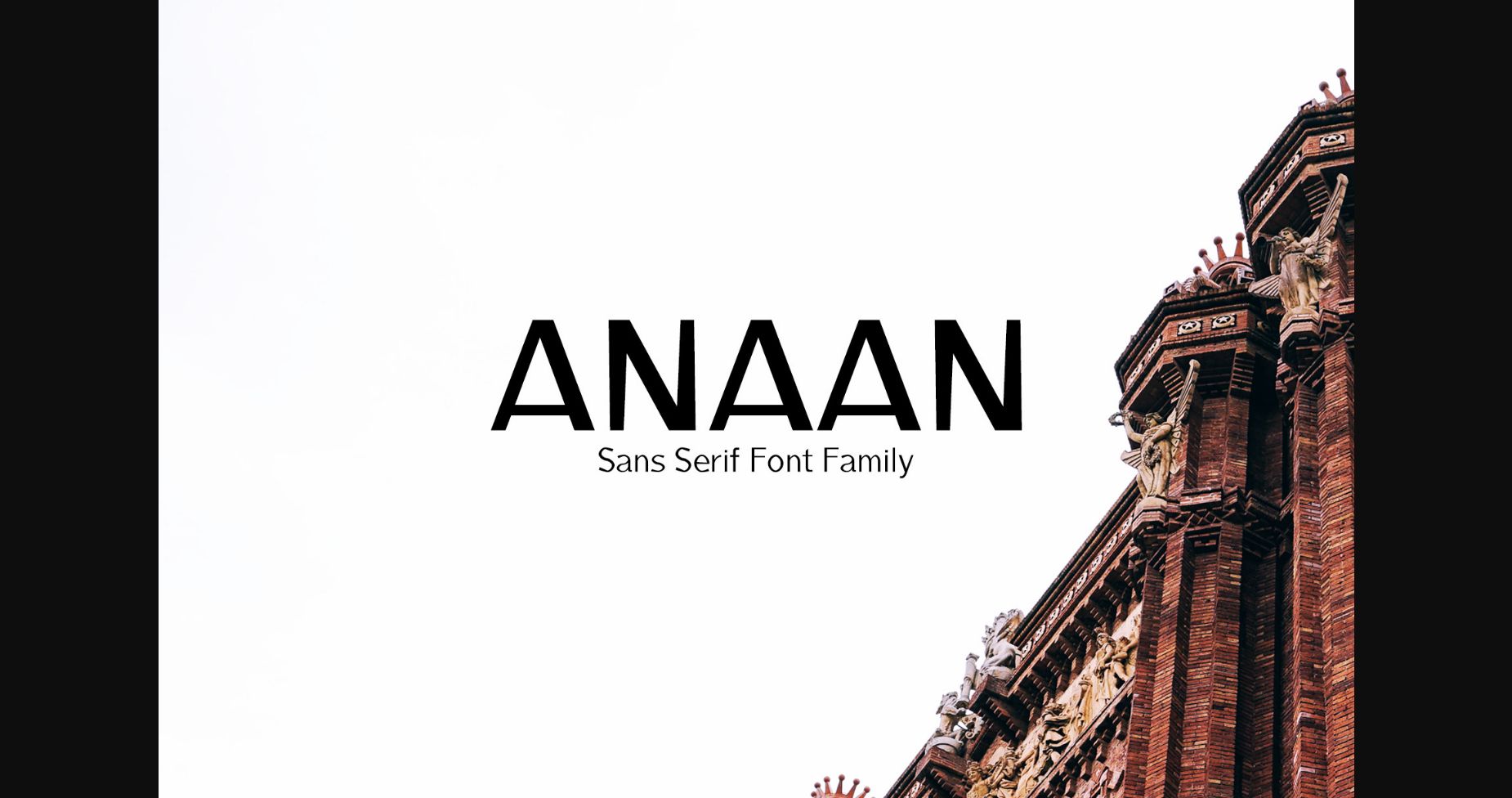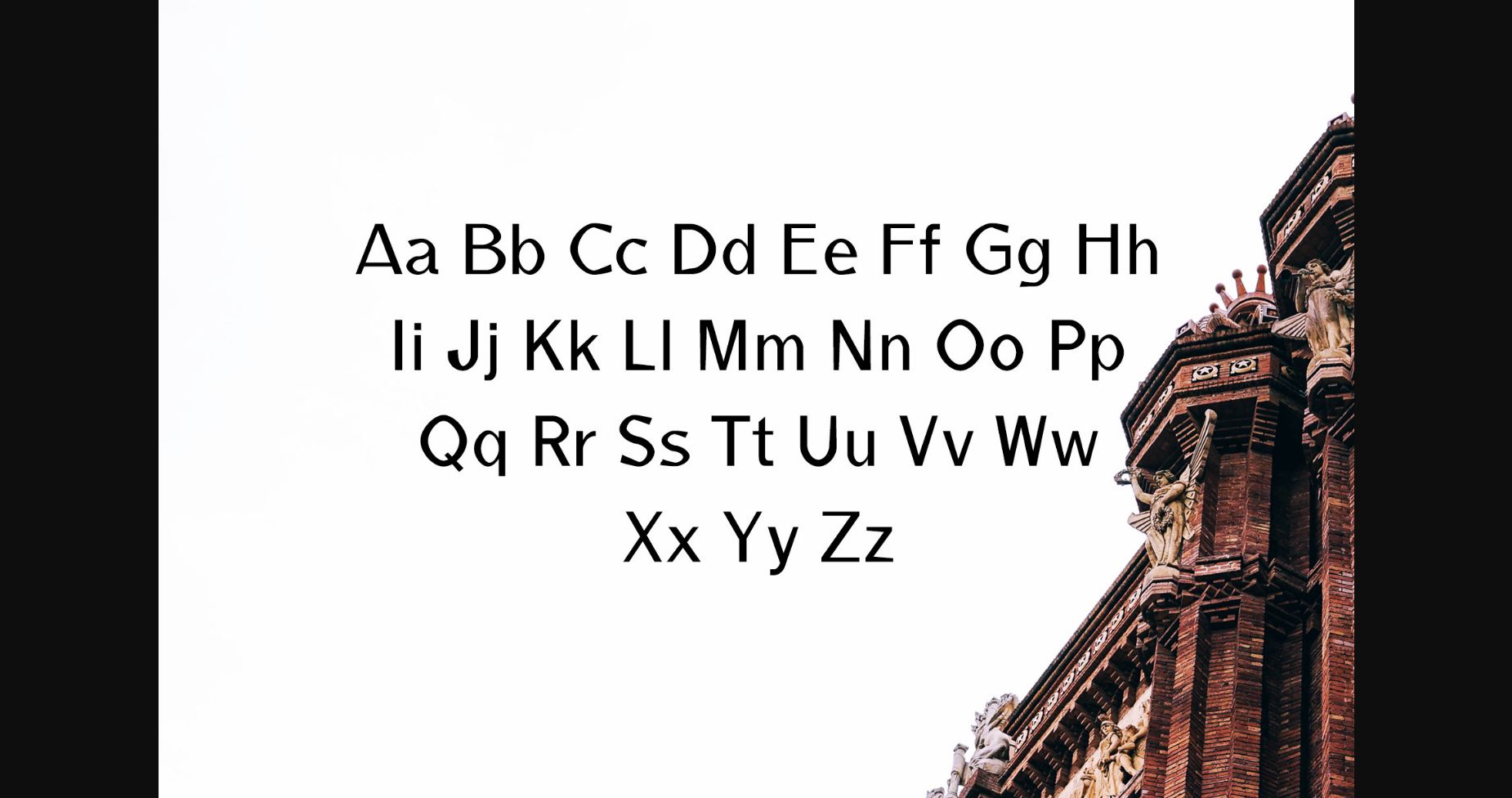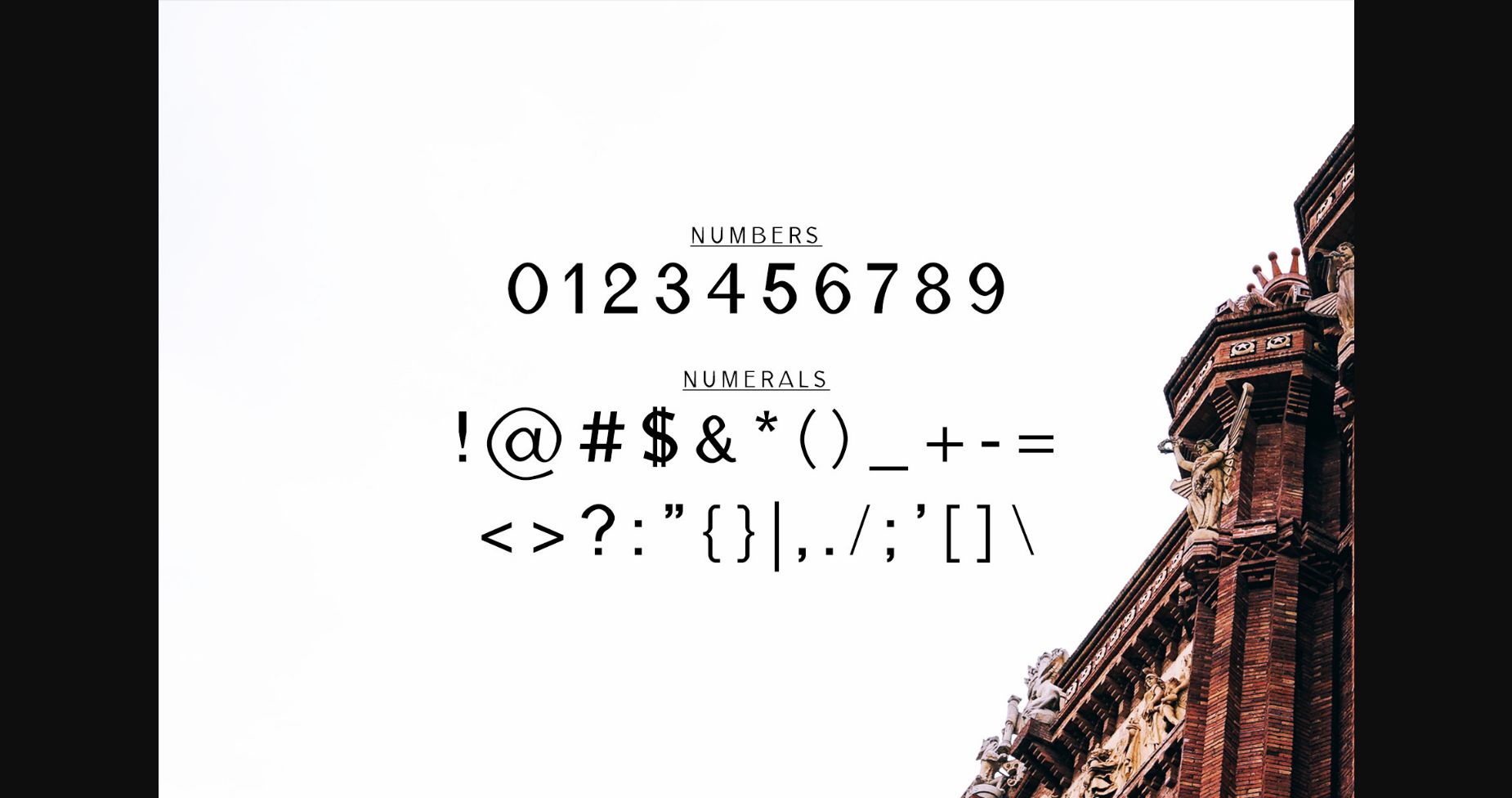
About Anaan Family Font
Anaan is a sleek and modern sans serif font family. It perfectly complements headers, headlines, social media posts, branding, banners, templates, resumes, presentations, and other projects that need neat typography.